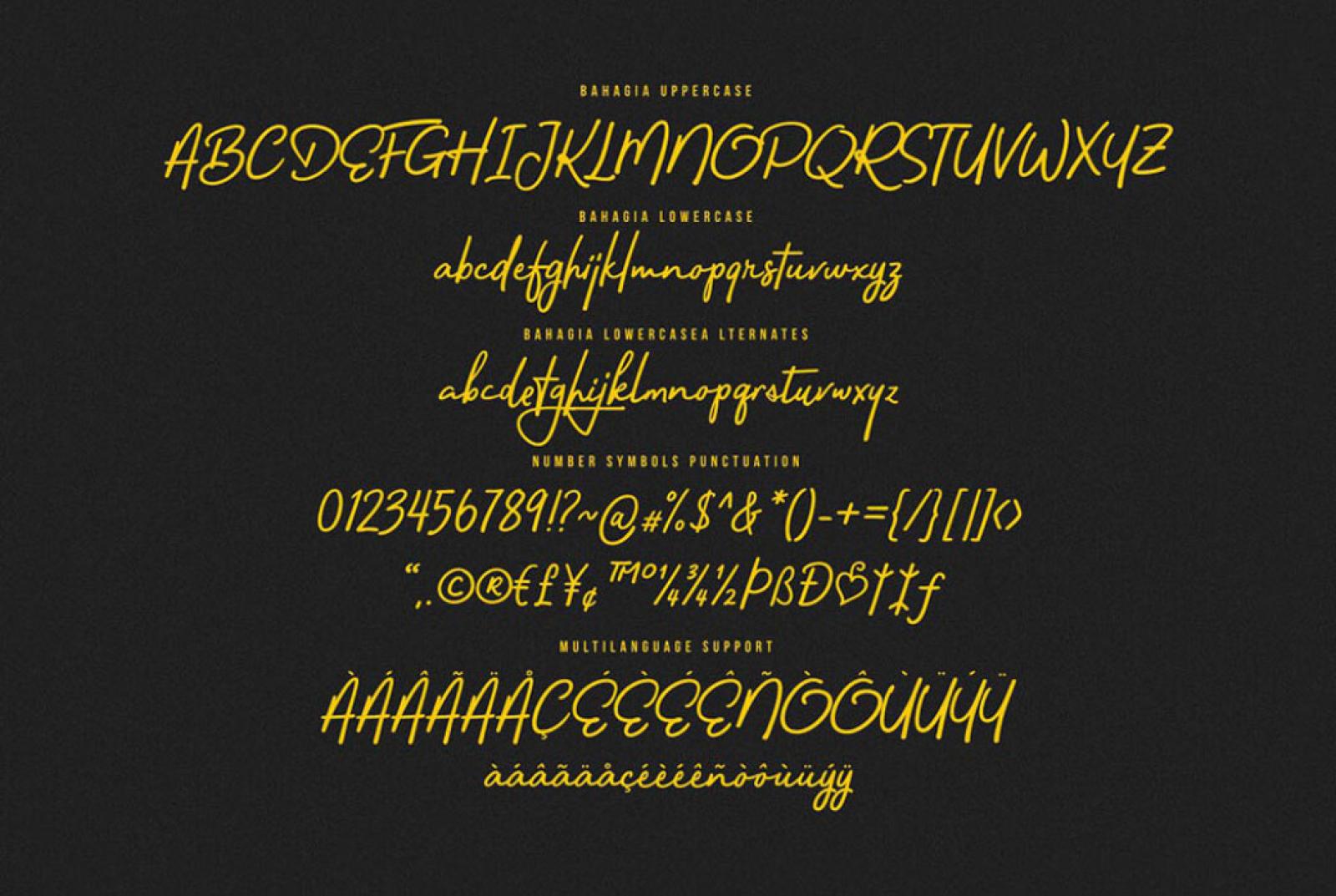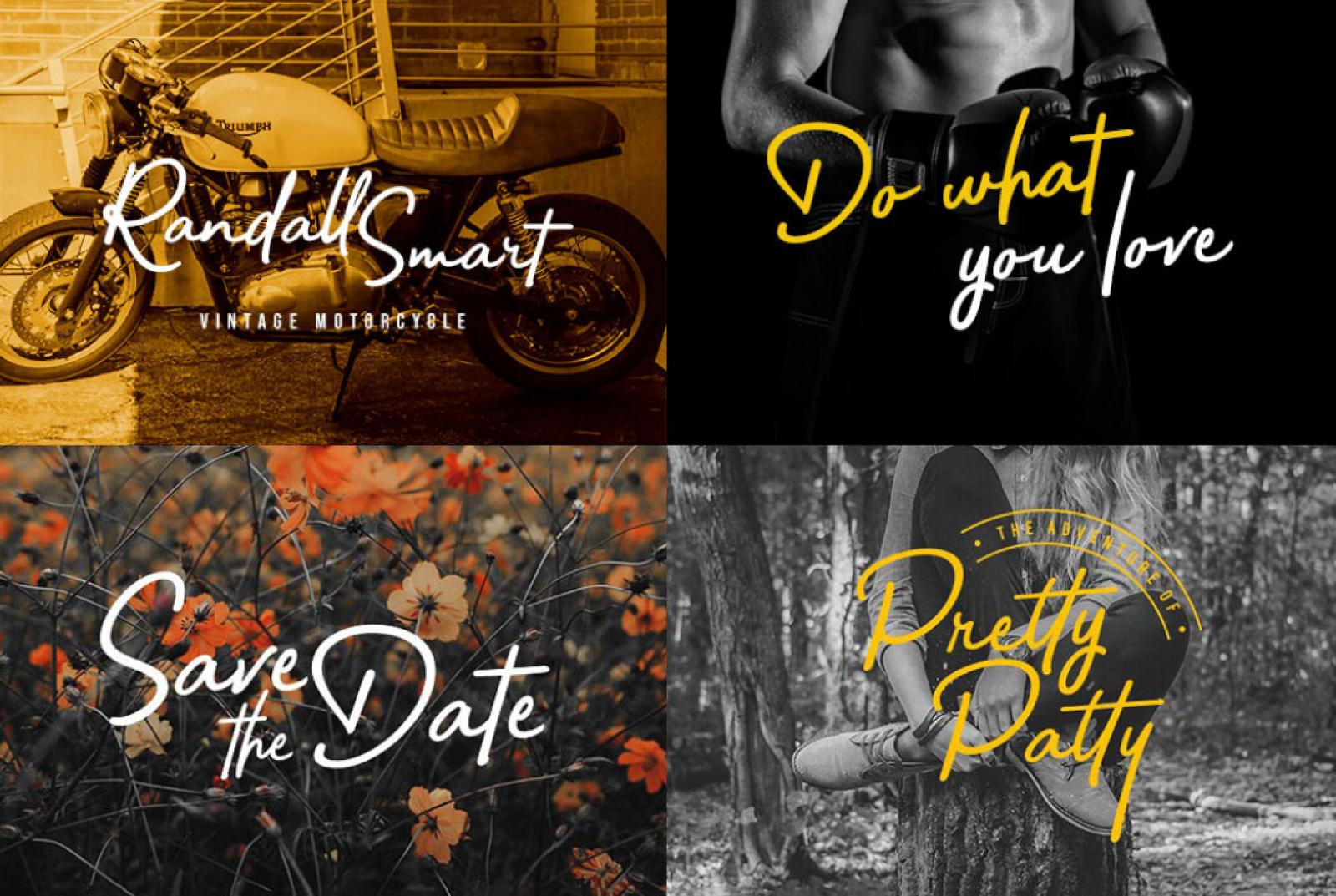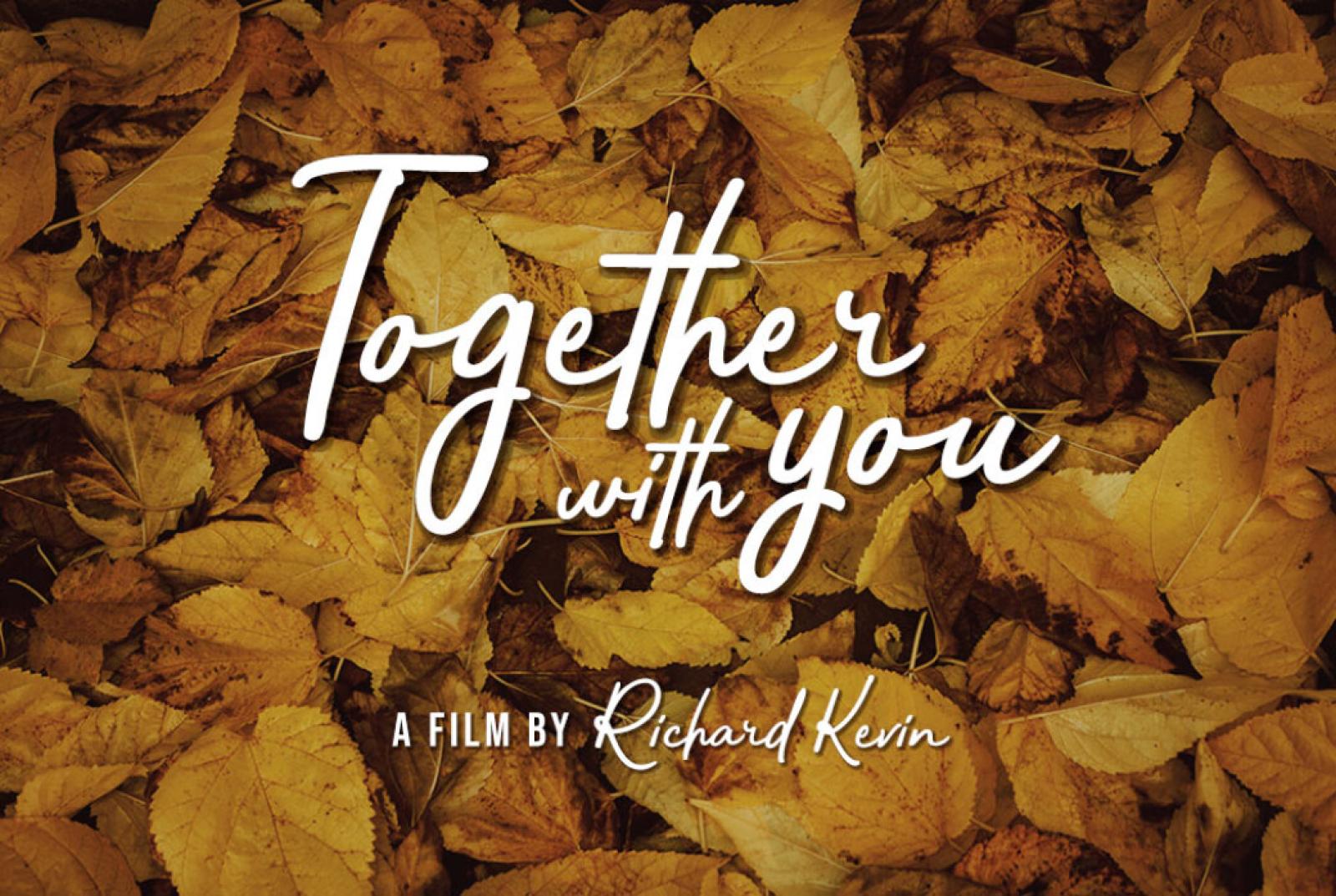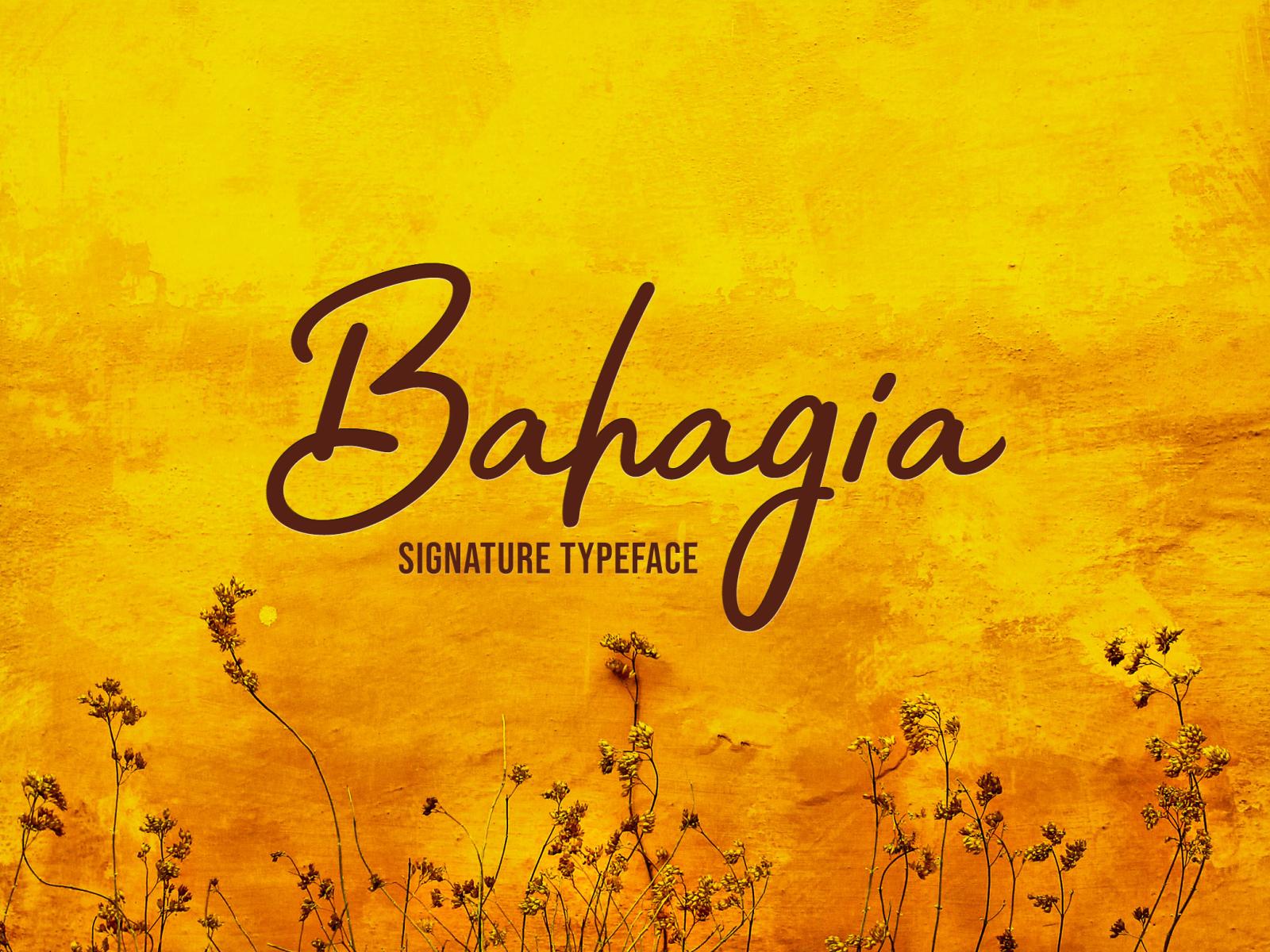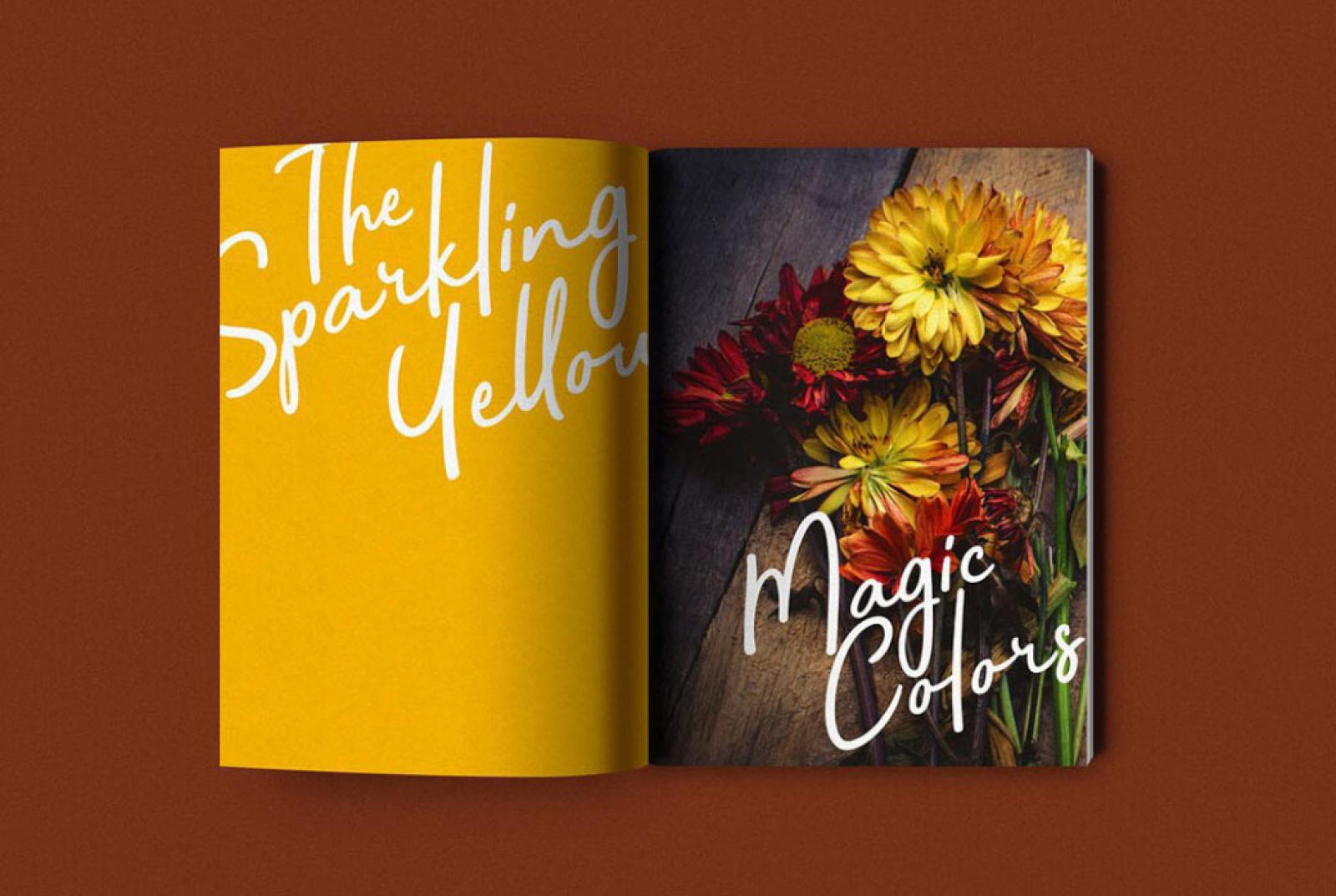
Bahagia Signature Typeface
Bahagia, a magnificent signature typeface sets a great example of the Asian fonts inexhaustible beauty, full of centuries-long charm and total power in every letter and stroke.
Perfect for logos, invitations, cards, packaging, it masterly embraces traditions and fresh trends and goes with all features you wish to see in a well-made typeface: multilingual support, stylistic & contextual alternates, and ligatures. What else may be desired with such a brilliant combination of design and performance?